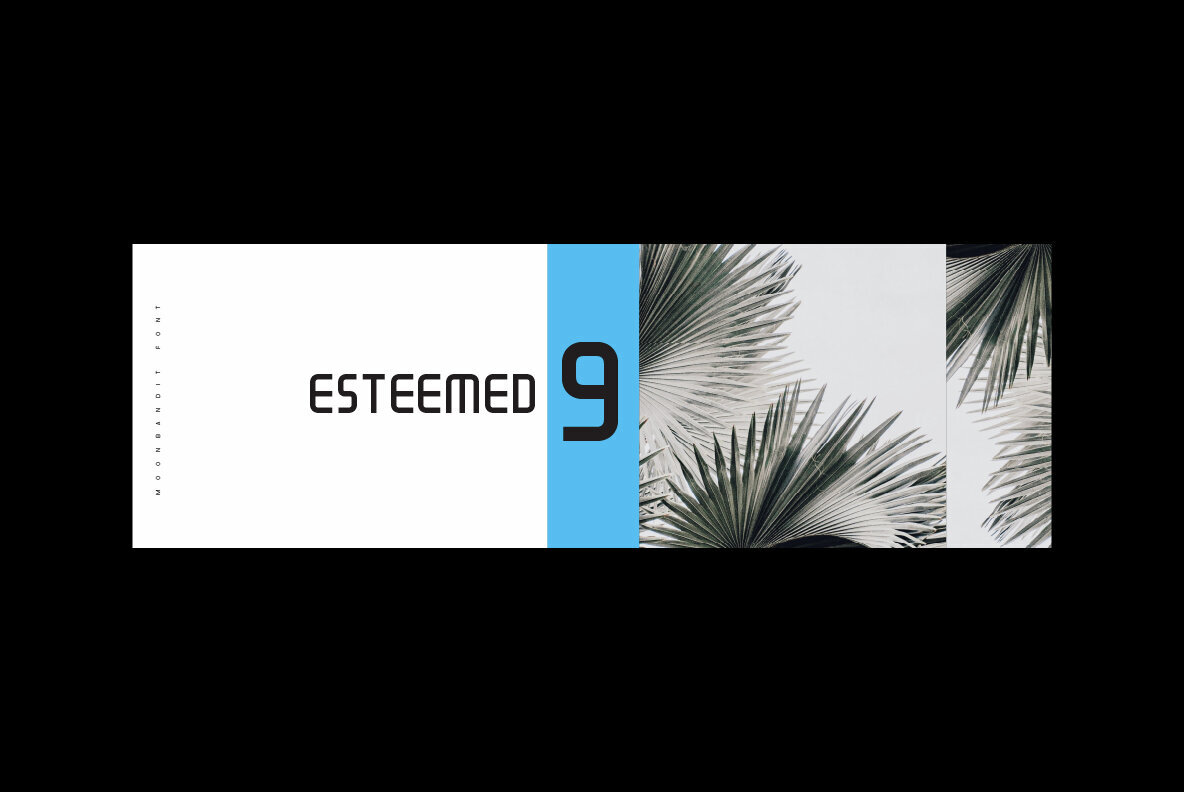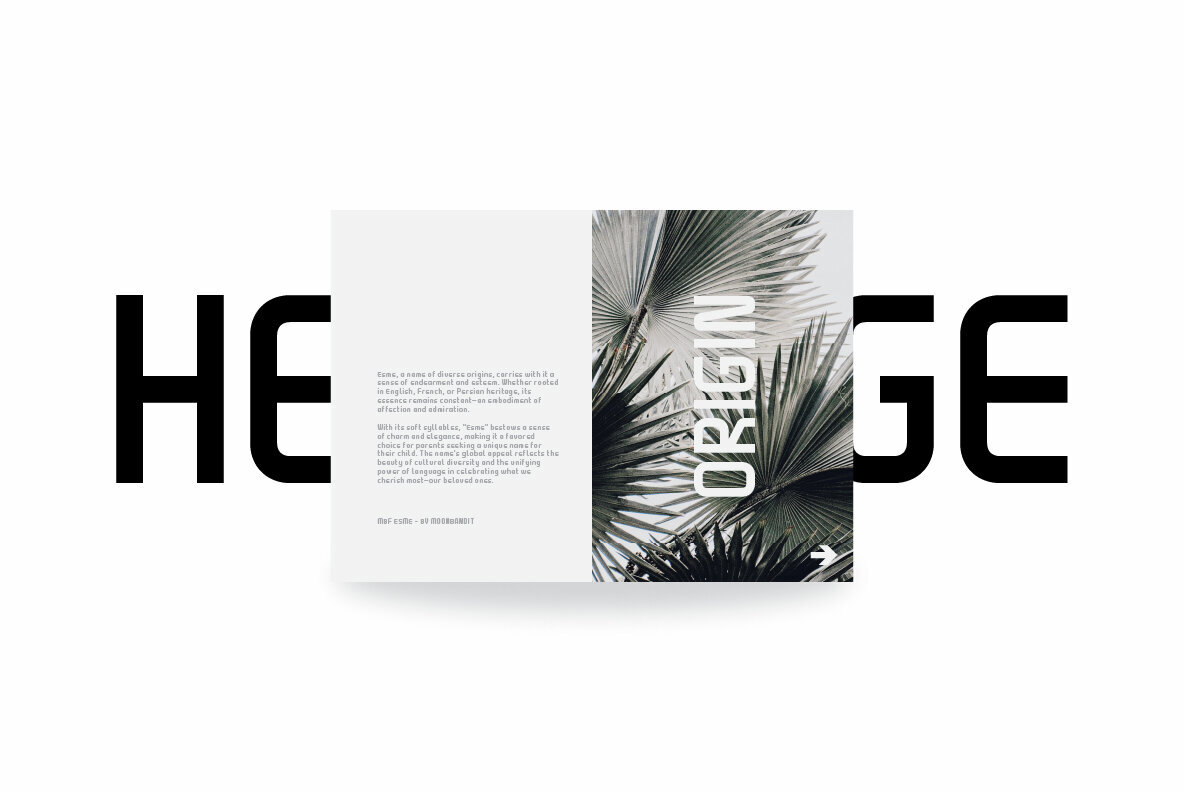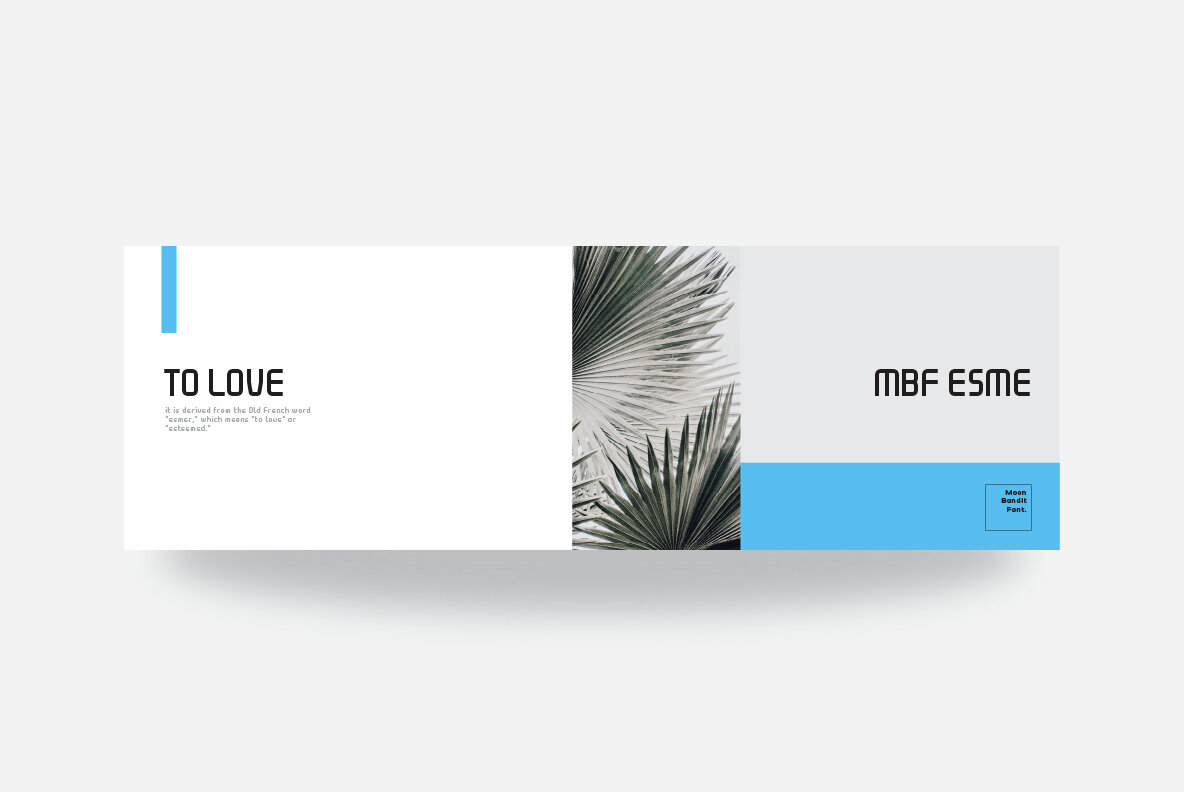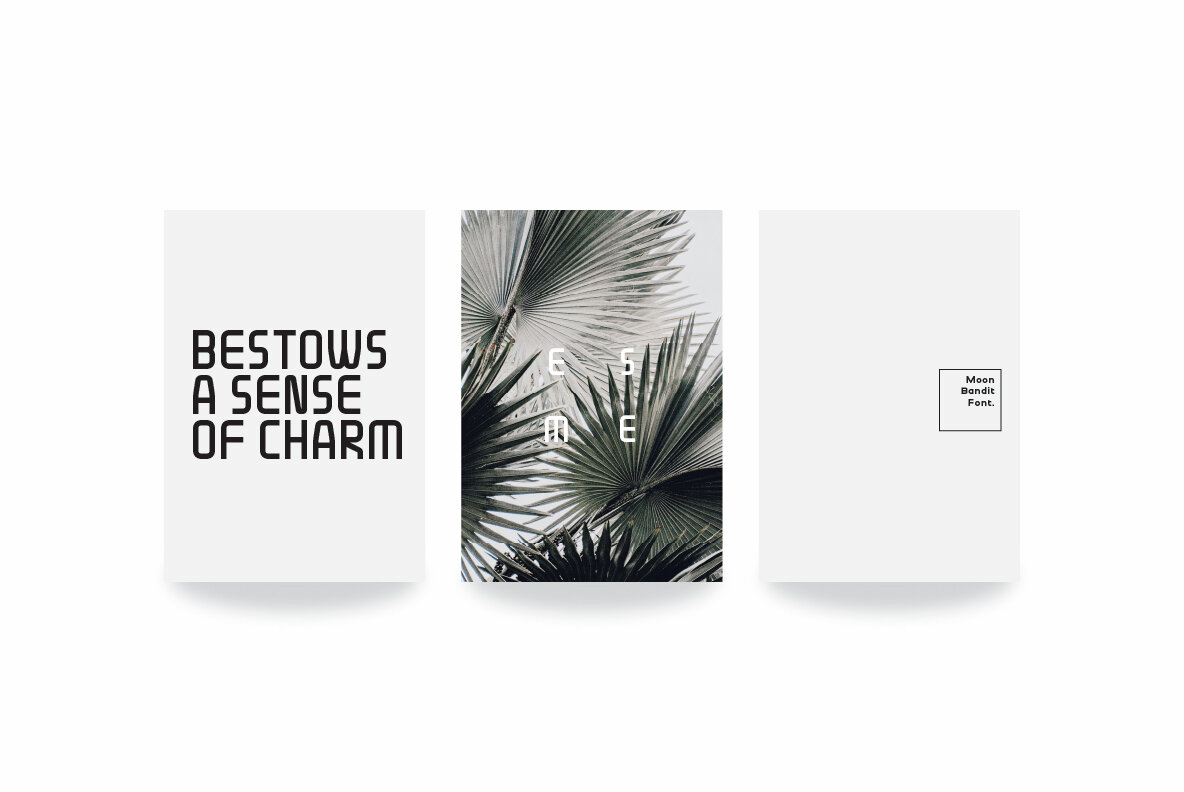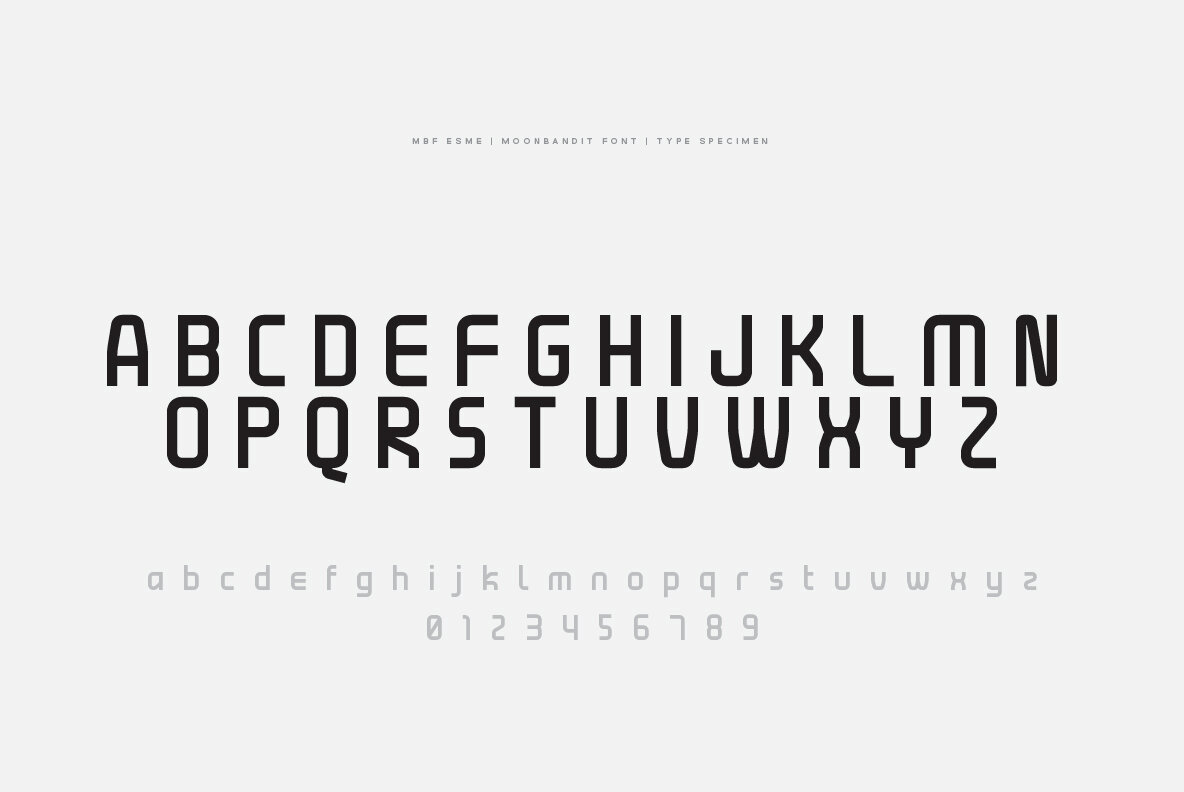
MBF Esme Font
MBF Esme
MBF Esme font is a modern, futuristic typeface with sleek, rounded edges and a condensed look. It is a perfect choice for any project that needs an edgy, modern touch. It's perfect for creating logos, headlines, and posters that stand out from the crowd. Its clean lines and curves make it easy to read, and its bold weight makes it stand out even more. MBF Esme font will make any project stand out from the crowd!